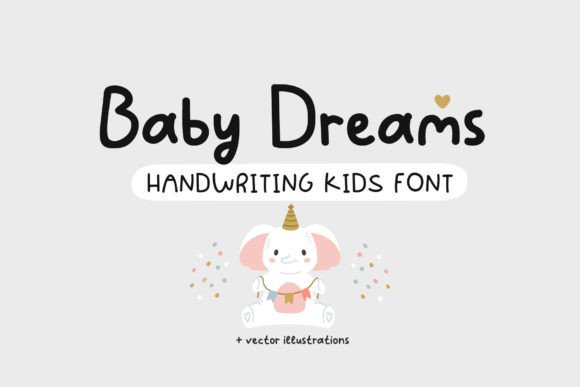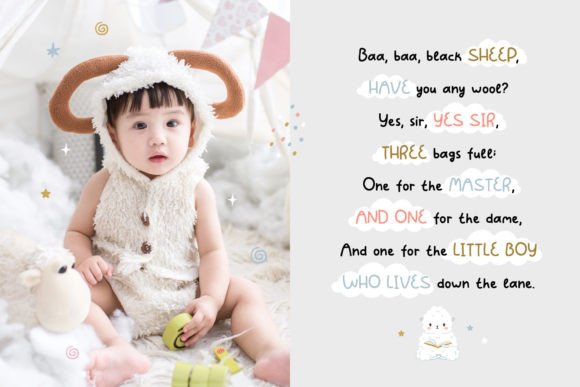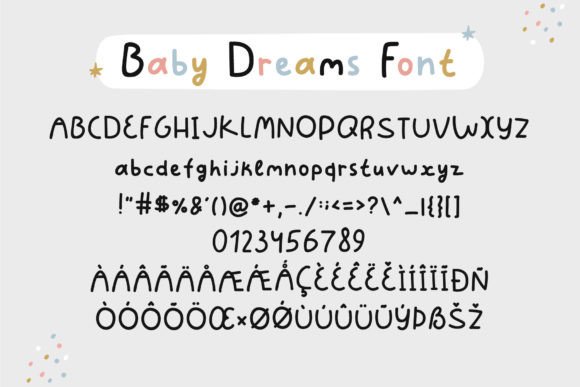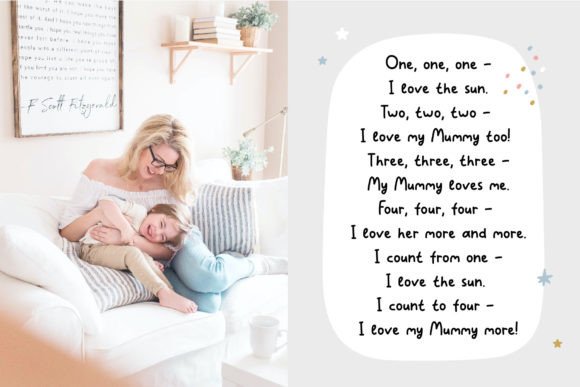
Baby Dreams Font: Cute Playful Font for Baby Cards & DIY Projects
About the Baby Dreams Font
Experience the unique personality of Baby Dreams Font, a font designed for impact. Baby Dreams is a cute baby playful font that would be perfect for baby shower design, newborn cards, design room posters and prints, bohemian nursery interiors, books, greeting cards, toys, baby clothing, picture books, and anything that requires a fun and happy look! The font also includes the Cyrillic alphabet.
Its playful, rounded forms make it ideal for children’s book titles, branding for baby products, or cheerful greeting cards. However, its light weight and decorative nature make it unsuitable for body text or UI elements where readability is paramount. Avoid using it for lengthy paragraphs or small sizes.
Baby Dreams pairs well with clean sans-serif fonts like Open Sans for a balanced contrast, or a more elegant serif like Playfair Display for a touch of sophistication. For a bolder look, consider pairing it with a geometric sans-serif such as Futura.
The font projects a cheerful, friendly personality, perfect for brands targeting young families or conveying a sense of joy and innocence. Its lighthearted style makes it a strong choice for projects that emphasize fun and warmth.
Baby Dreams Font Usage Examples
Baby Dreams Font Example